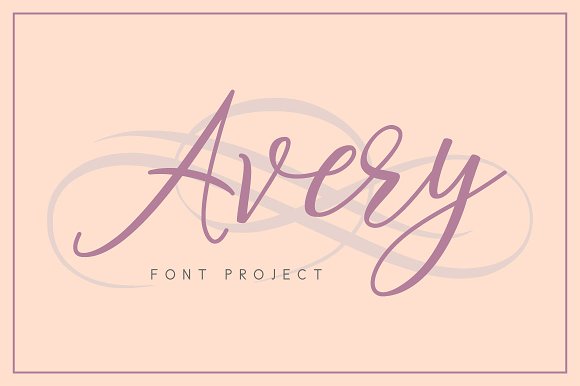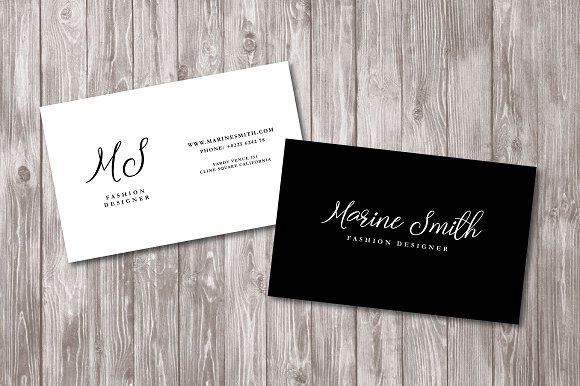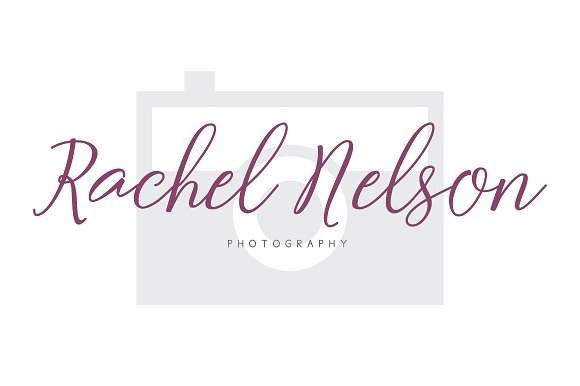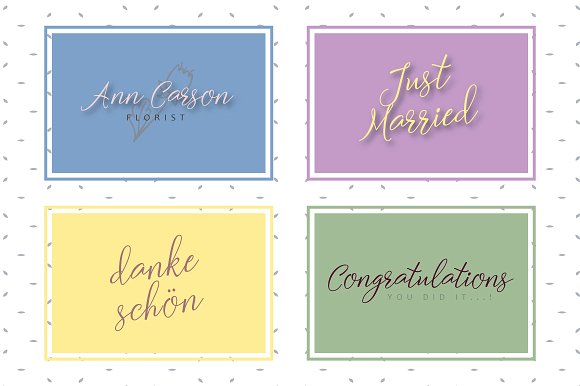
Avery Font
Presenting Avery Script Typeface, a modern script font which every single letter has been carefully shaped to create your text looks stunning. A contemporary script style typeface will craft a perfect expression for many different projects such as quotes, blog header, poster, wedding, branding, logo, fashion, apparel, letter, invitation, stationery, etc.